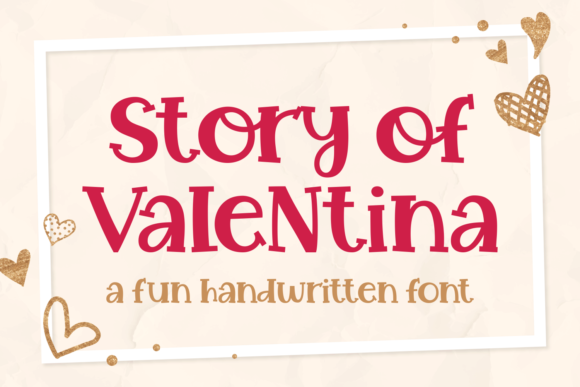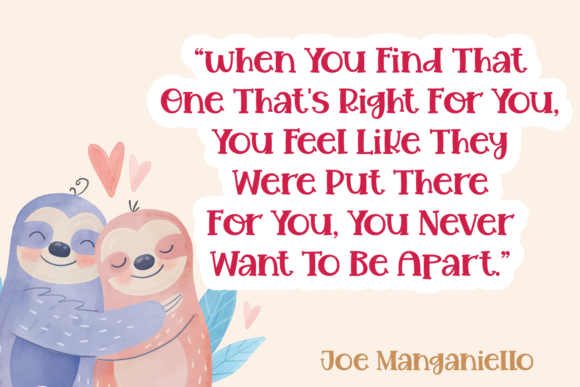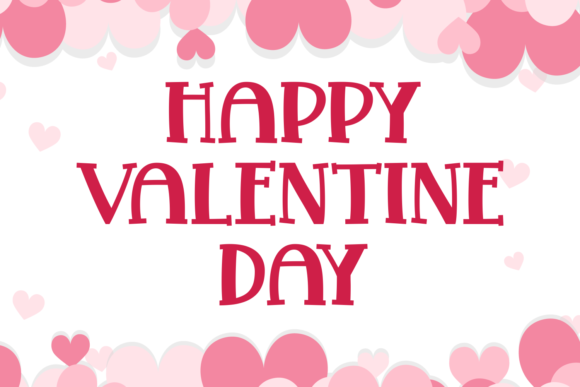
Story of Valentina Font
Story Of Valentina is a fun, quirky and joyful display font. Whether you’re using it for crafts, digital design, presentations, or making greeting cards, this font has the potential to become your favorite go-to font, no matter the occasion!